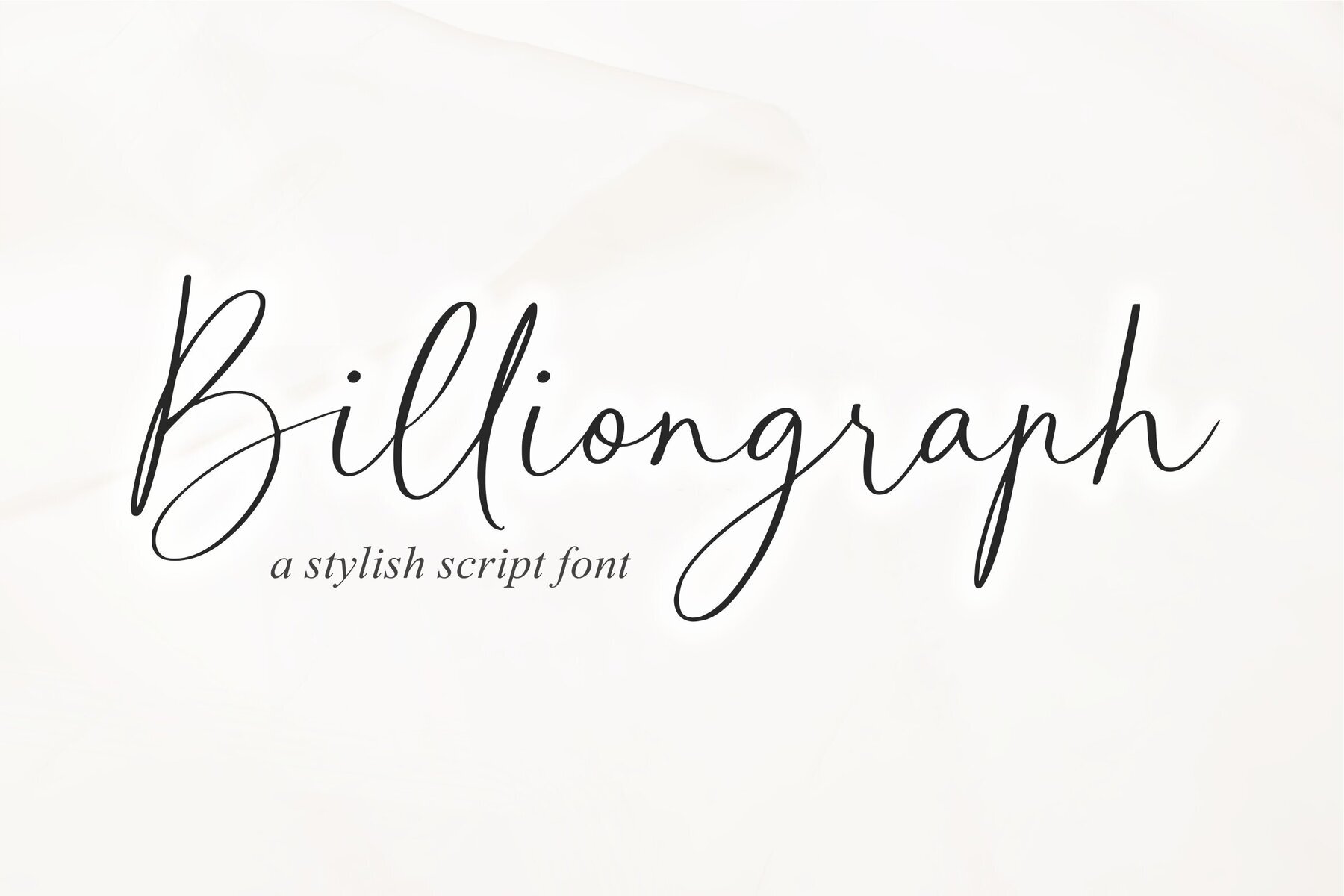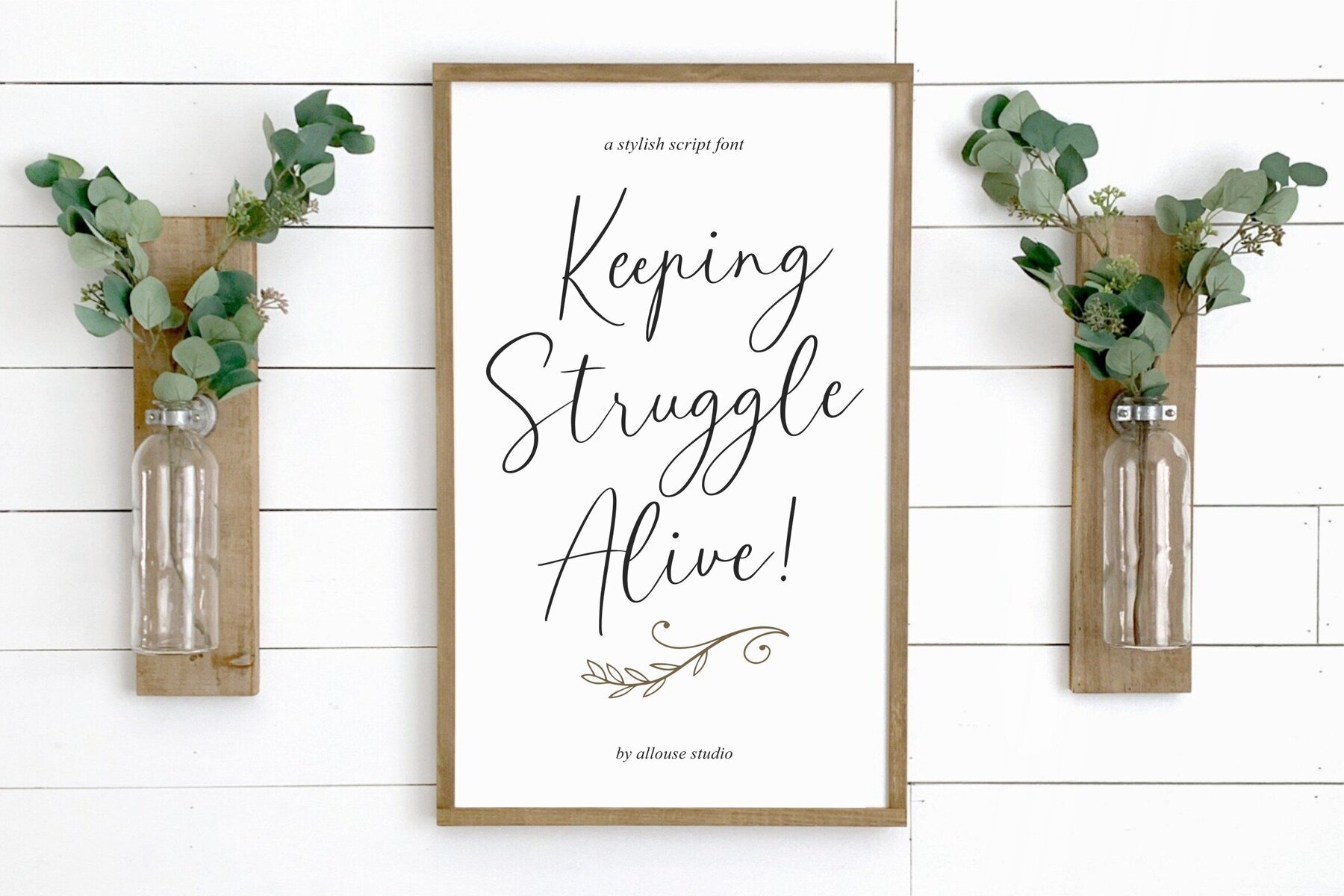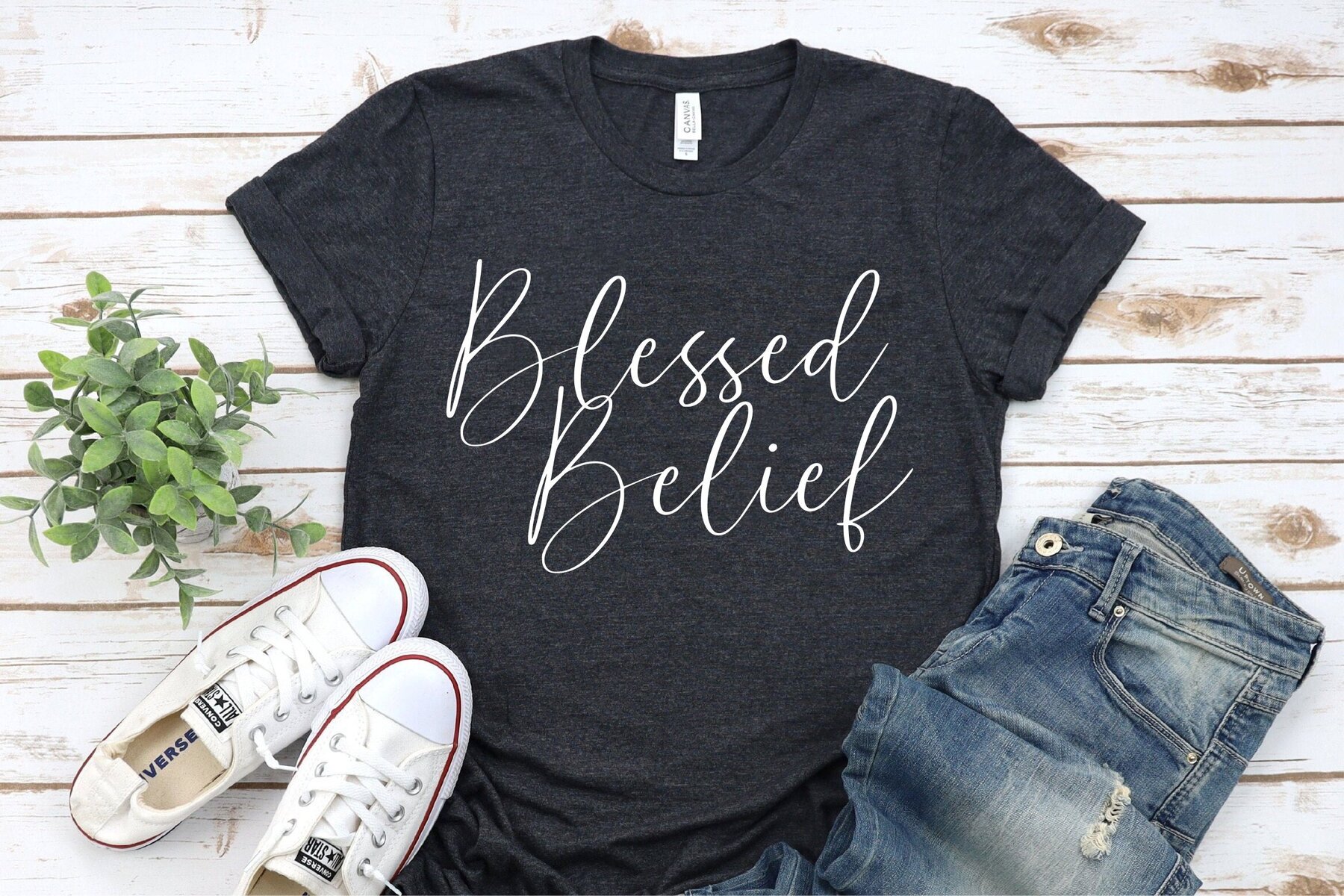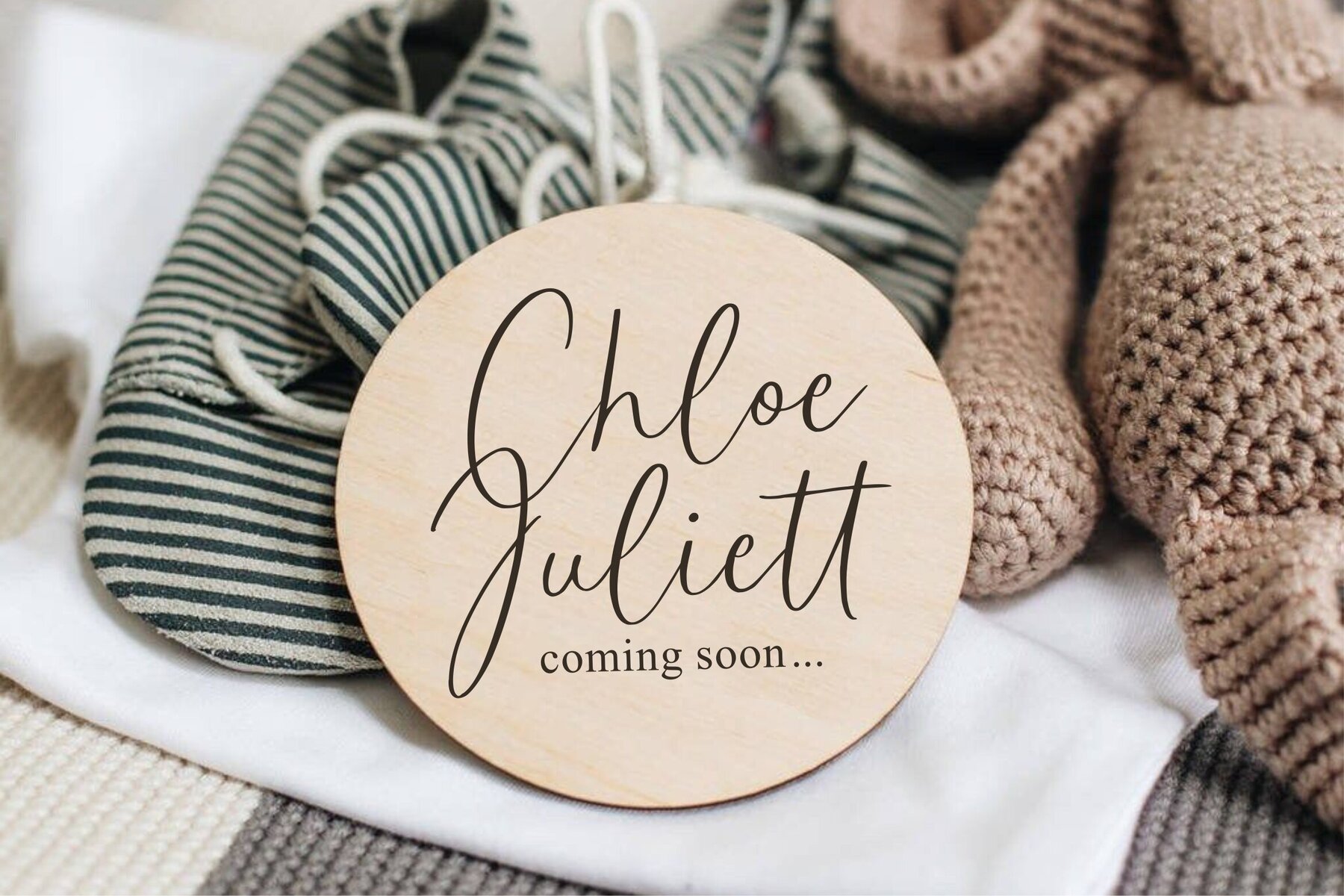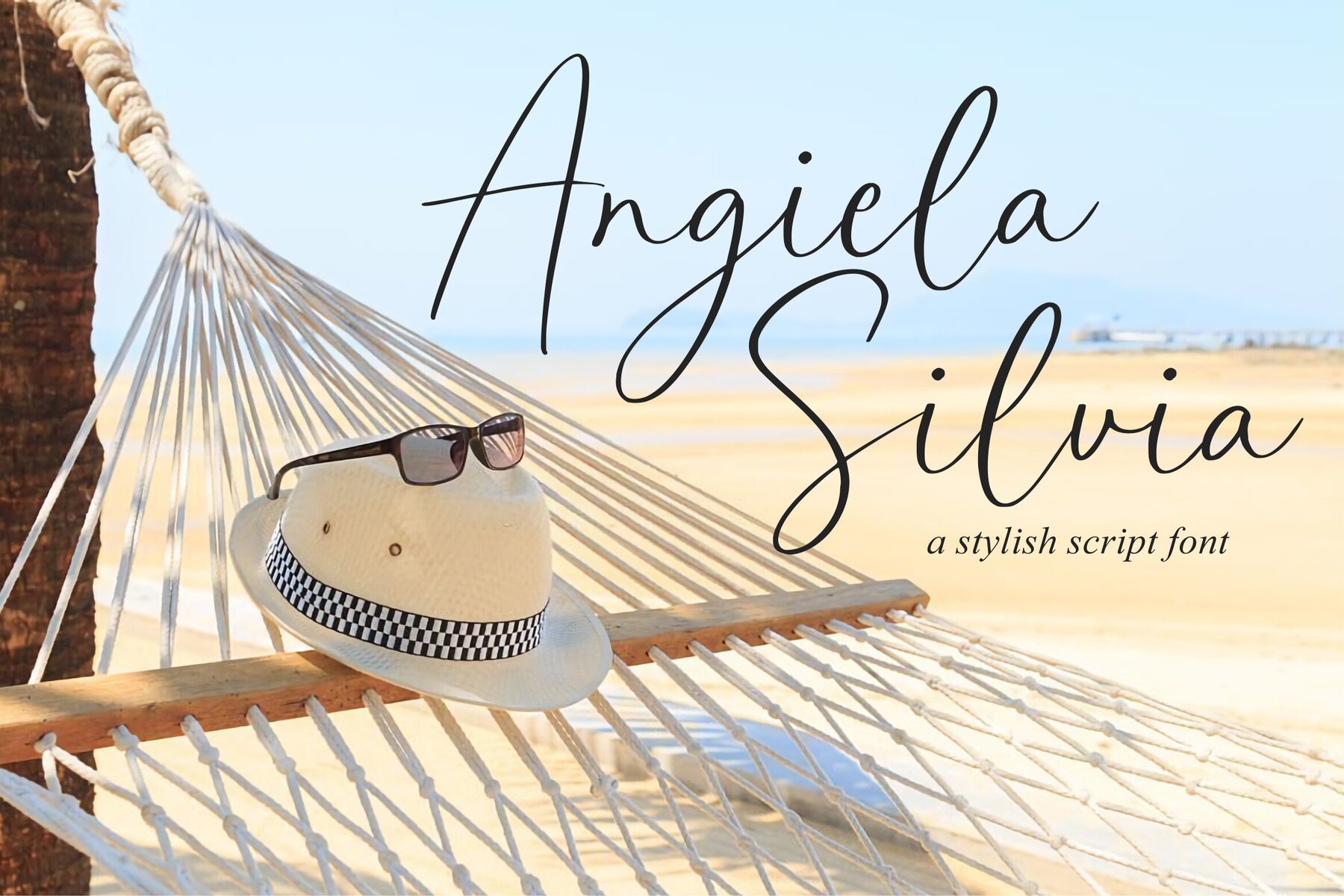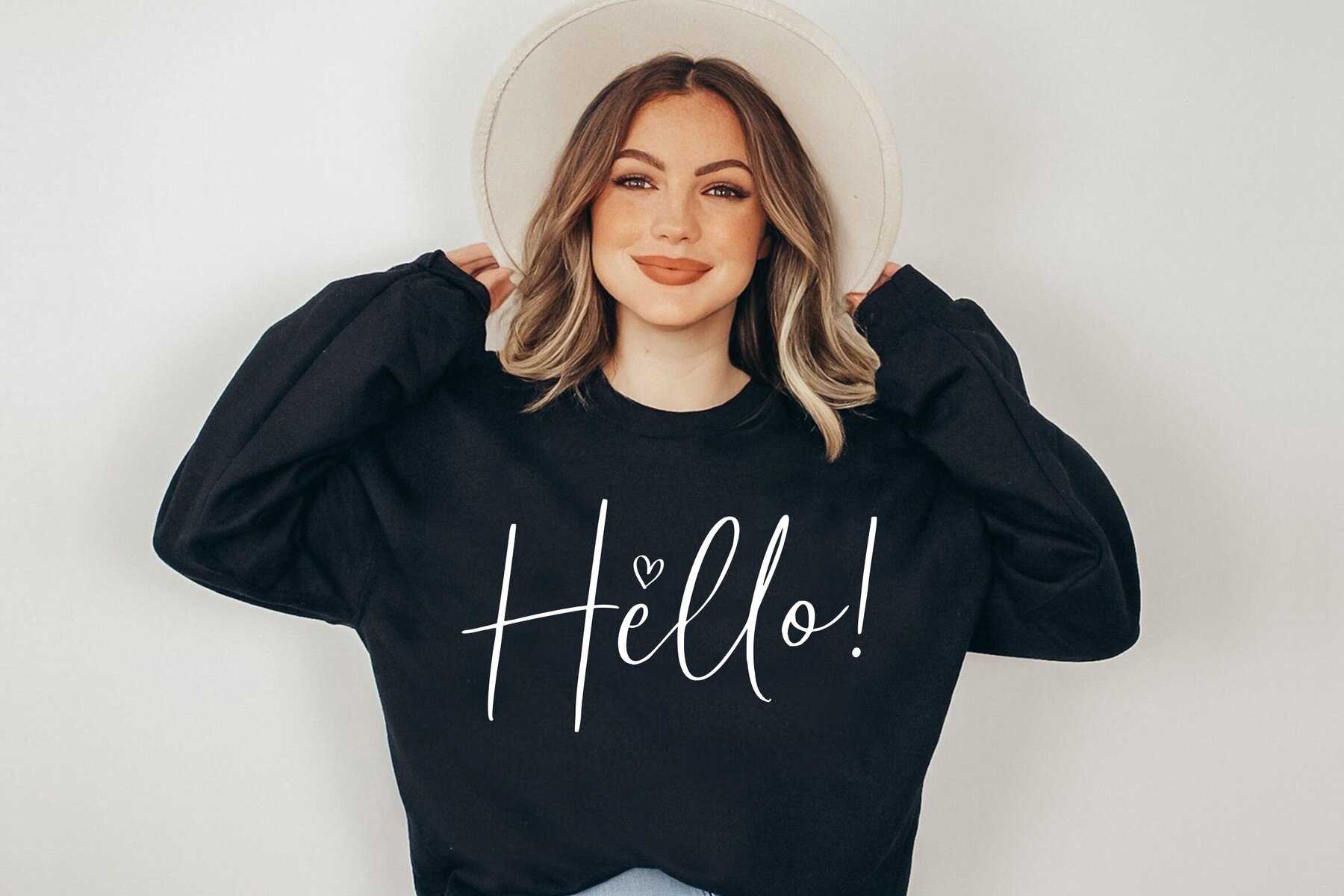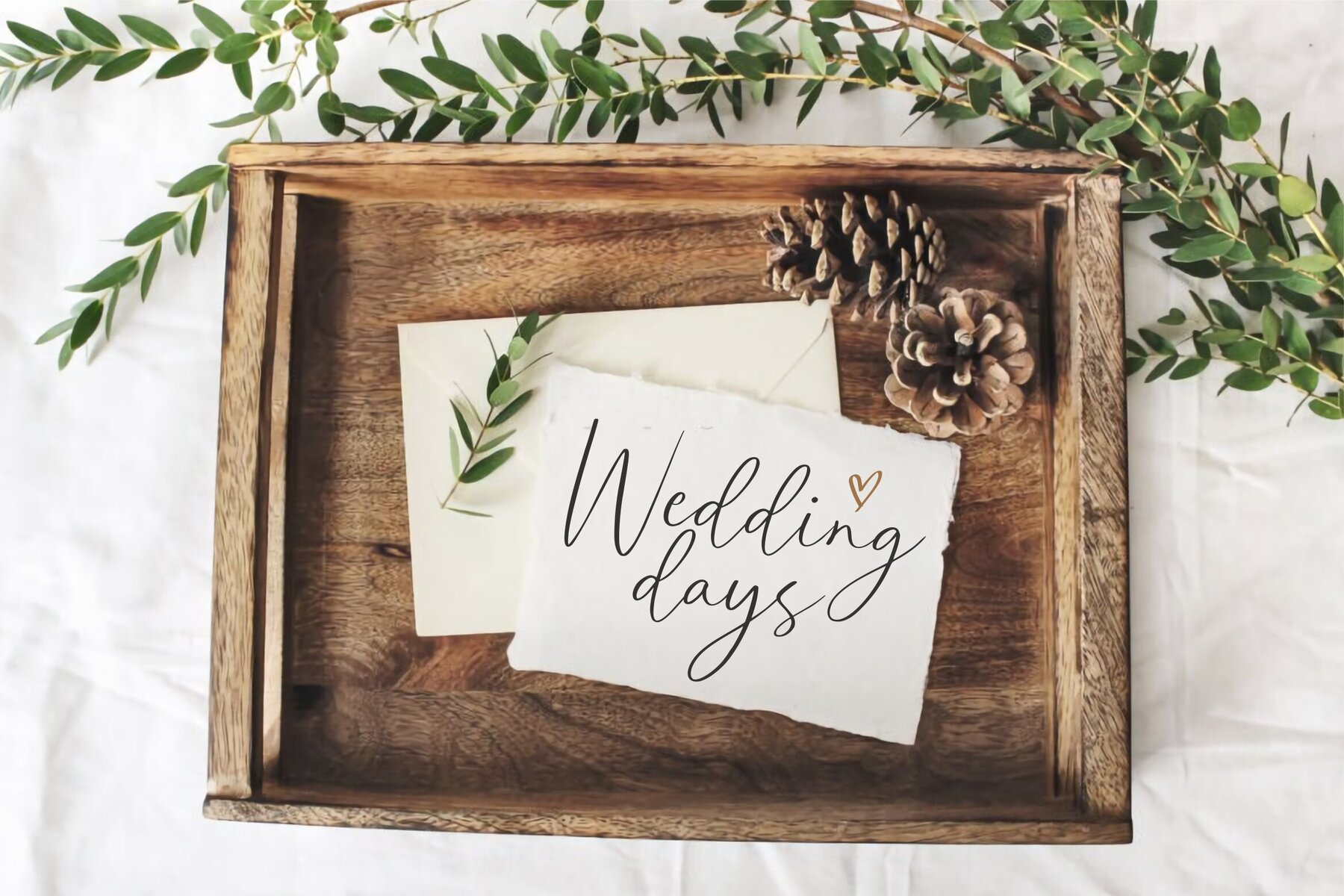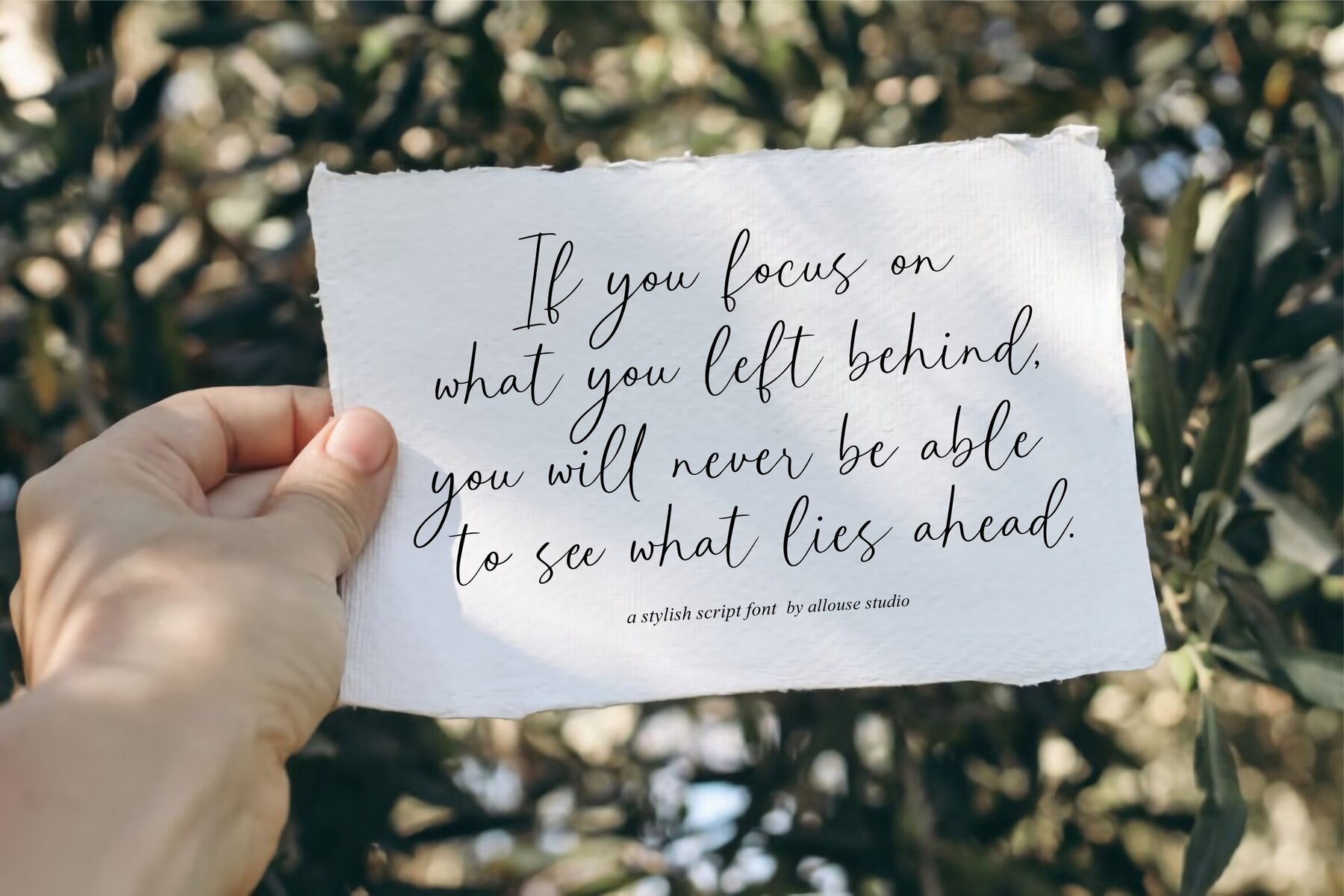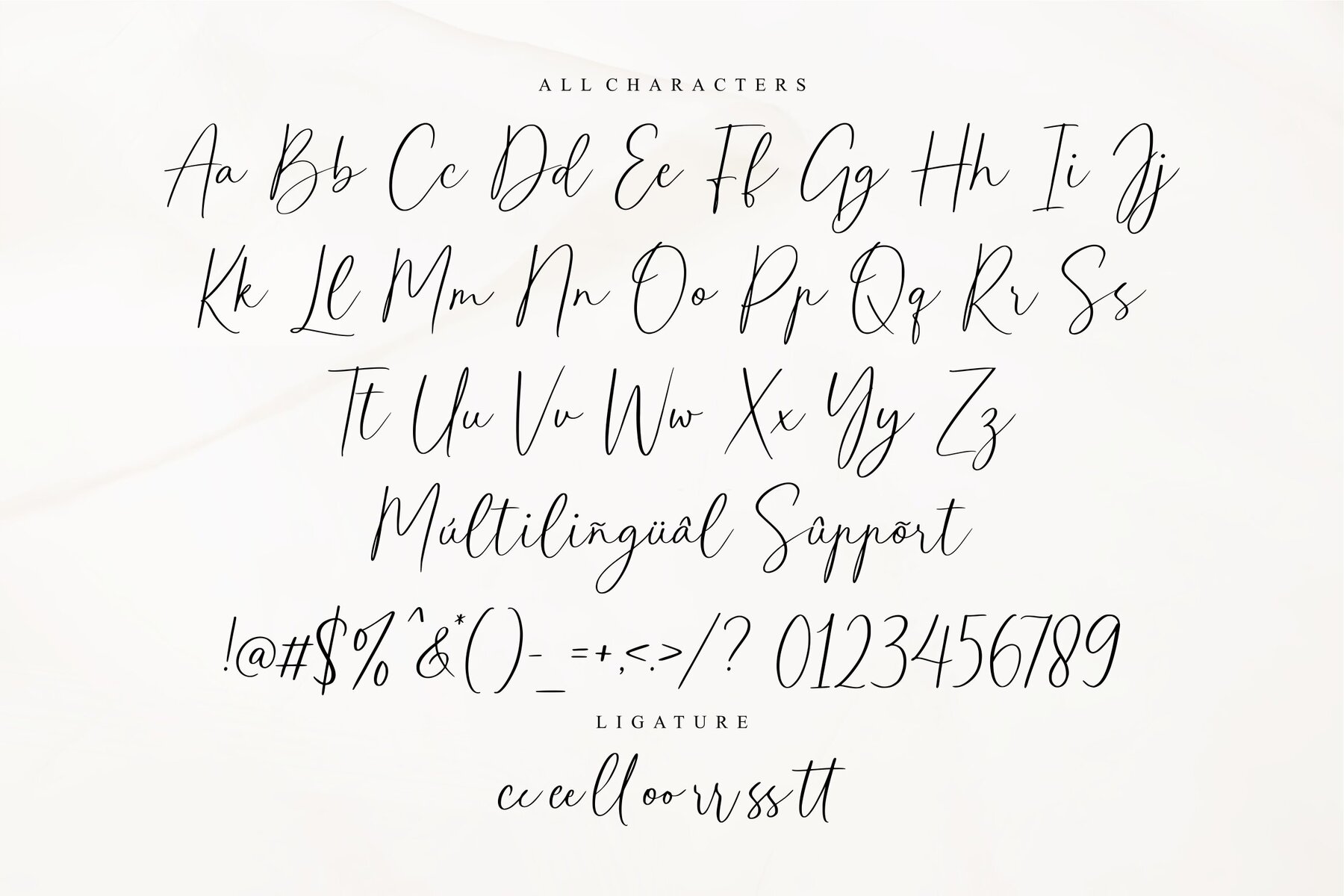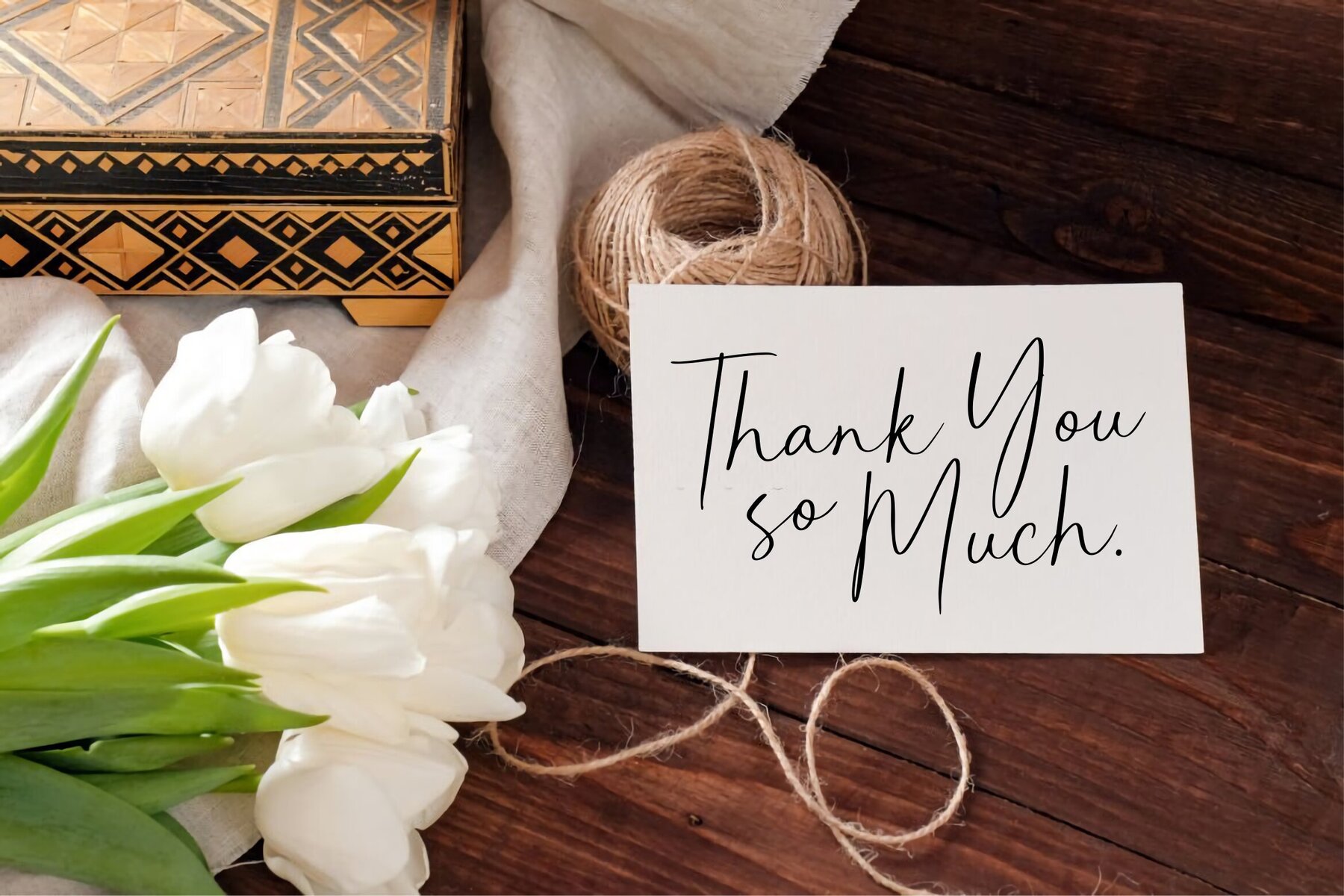
Billiongraph Font
Billiongraph Regular
The Billiongraph typeface strikes a unique balance between elegance and practicality, making it an impeccable fit for various design projects. Whether you're curating product packaging or crafting an eye-catching magazine spread, this font brings a compelling visual presence to your work. Its suitability extends to branding projects and social media graphics, offering an aesthetic that's as sophisticated as it is versatile. Beyond the realm of commercial designs, Billiongraph seamlessly transitions into more personal applications, such as wedding invites where style meets sentimentality. This typeface serves as a refined choice to convey messages with clarity and grace, setting your words above the background with an assured poise.Billiongraph: A Versatile Typeface for Modern Designs